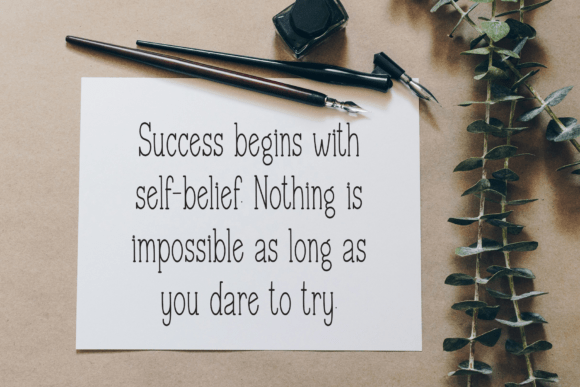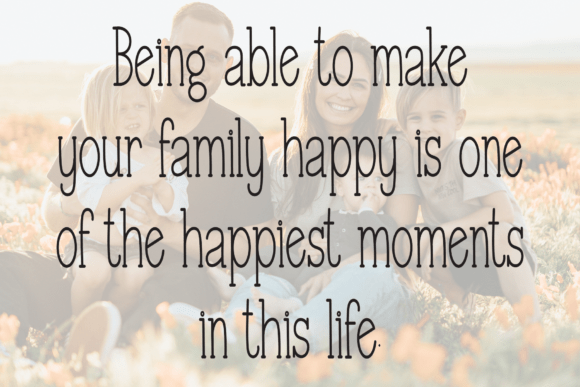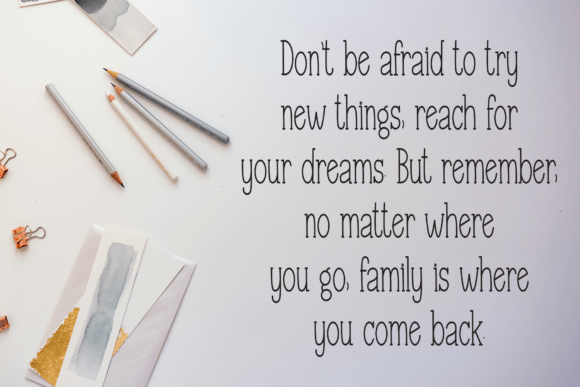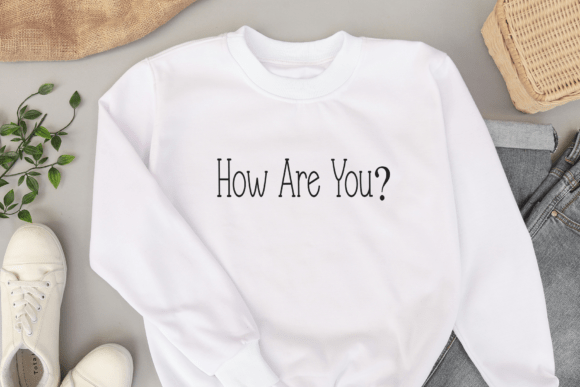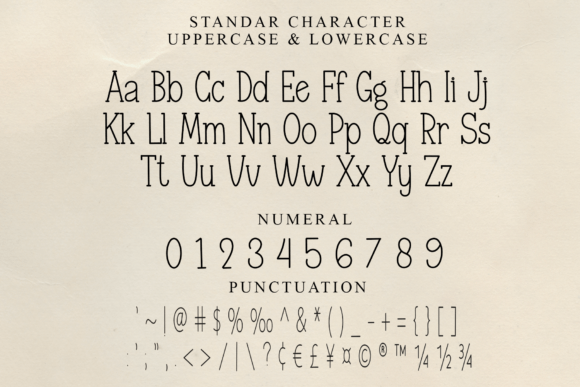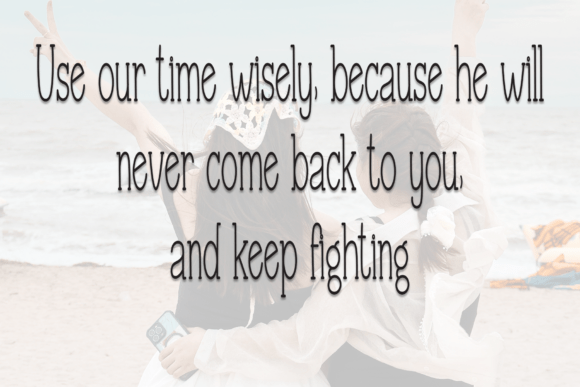
The Catch: Discovering the Charming Fishing Font
I’ll never forget the time I was working on a project for a client’s fishing-themed party invitation. I had a clear vision of a fun, laid-back design, but I was struggling to find the perfect font to match. That’s when I stumbled upon the Fishing Font, and it was love at first sight! ✨ The round, playful strokes and charming, hand-drawn aesthetic instantly captured the relaxed and approachable feel I was going for. In this article, I’ll share my experience with the Fishing Font, its features, and how to make the most of it in your designs.
- ✅ The font’s casual and creative vibe makes it perfect for personal projects, invitations, and social media graphics.
- ✨ The hand-drawn aesthetic adds a fun and unique touch to any design.
- 👍 The font’s warmth and friendliness make it an excellent choice for designs that require a personal touch.
While the Fishing Font is an excellent choice for many designs, there are a few things to keep in mind: ⚠️
- 🤔 The font’s playful nature might not make it the best fit for very formal or professional designs.
- ⚠️ Some users might find the font’s rounded strokes a bit too casual for certain projects.
A Practical Guide: Using Fishing Font in Your Designs
The Designer Inspiration Behind Fishing Font
The Fishing Font was created with the intention of capturing the warmth and friendliness of handwritten fonts. The designer, inspired by the casual and creative world of fishing, aimed to create a font that would exude a sense of relaxation and approachability. The result is a charming, hand-drawn font that adds a fun and unique touch to any design.